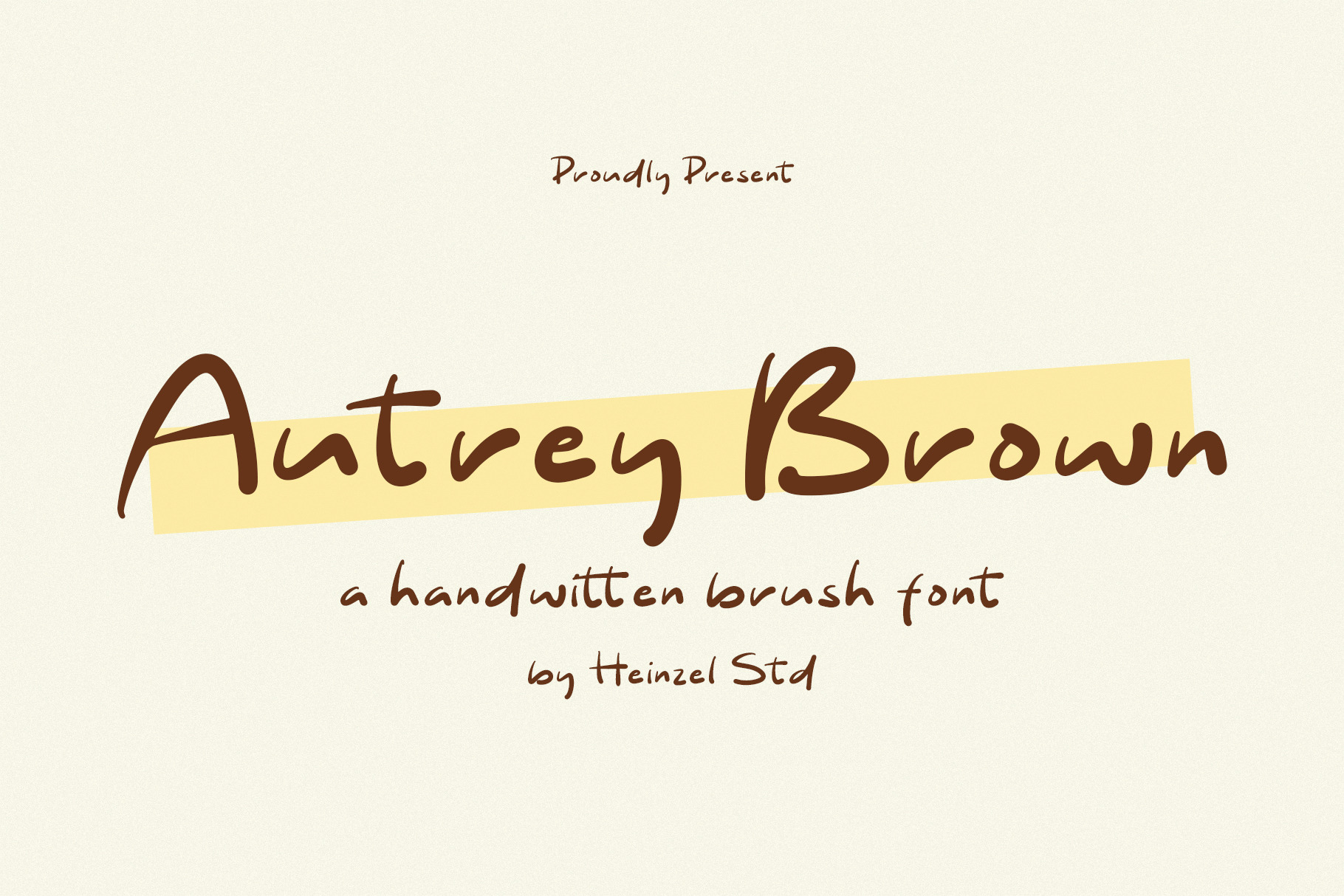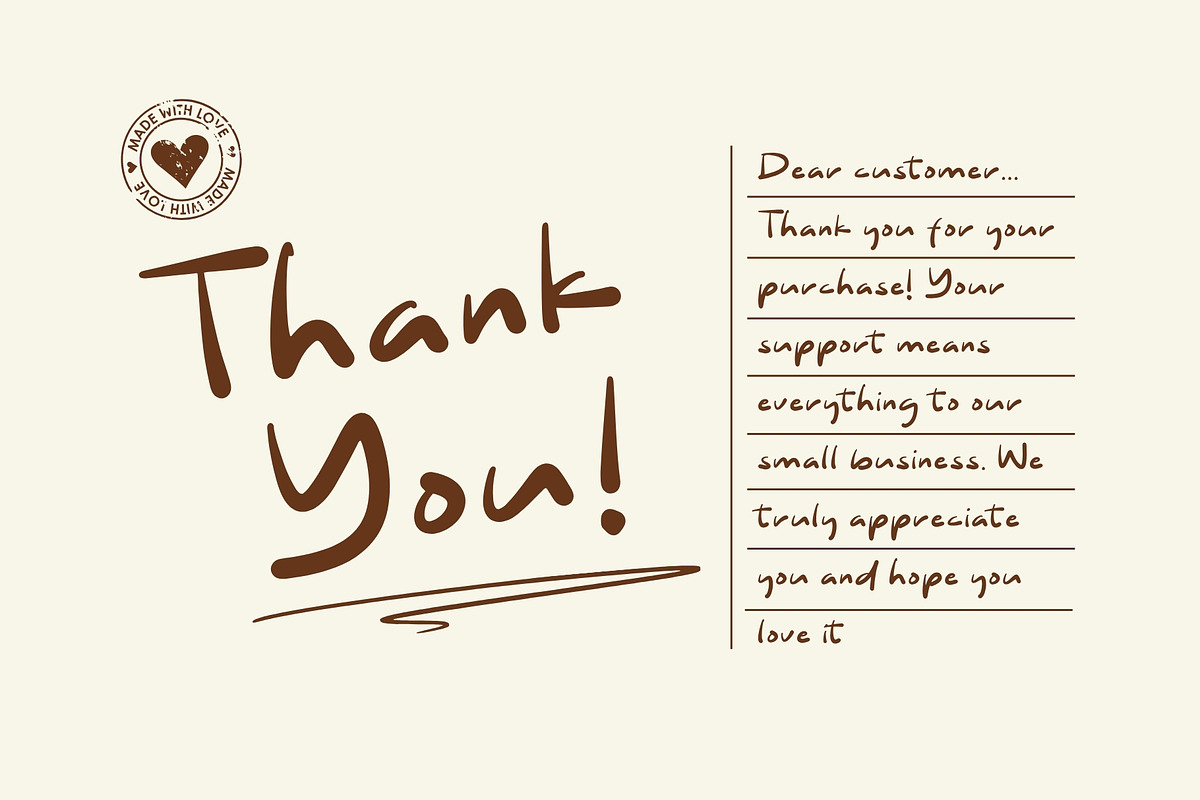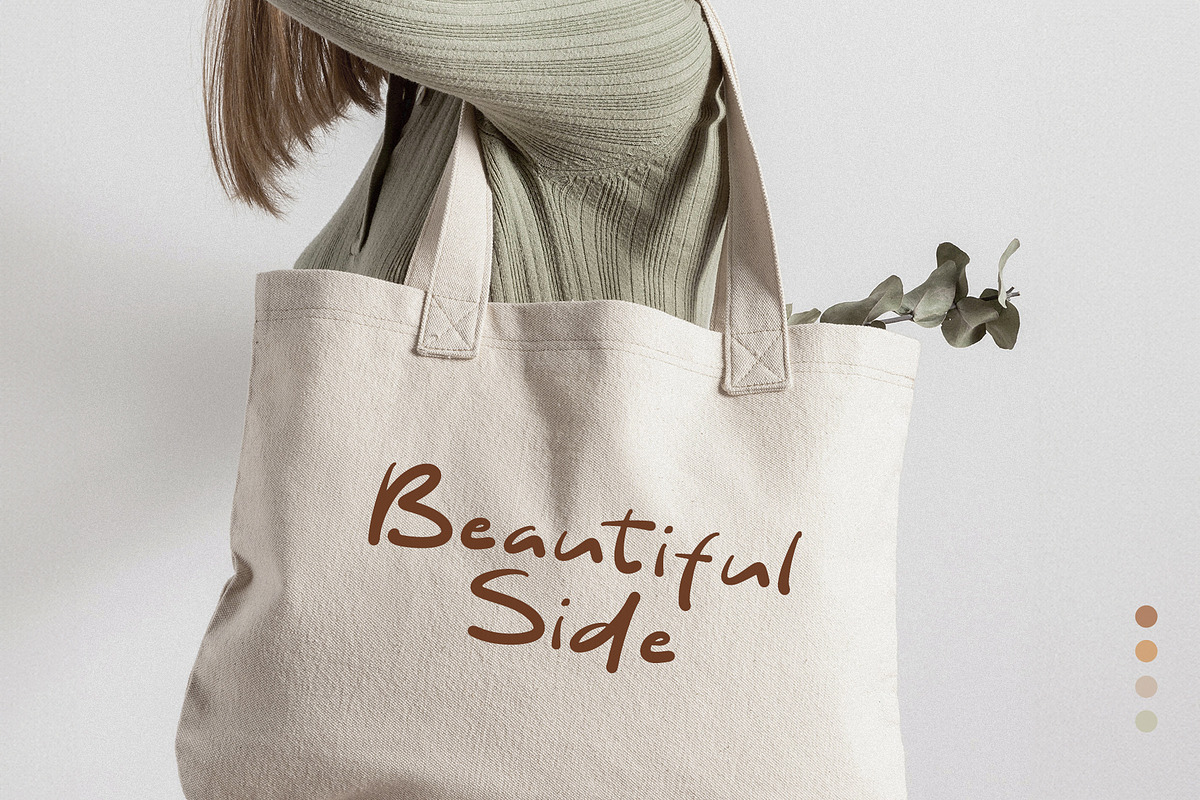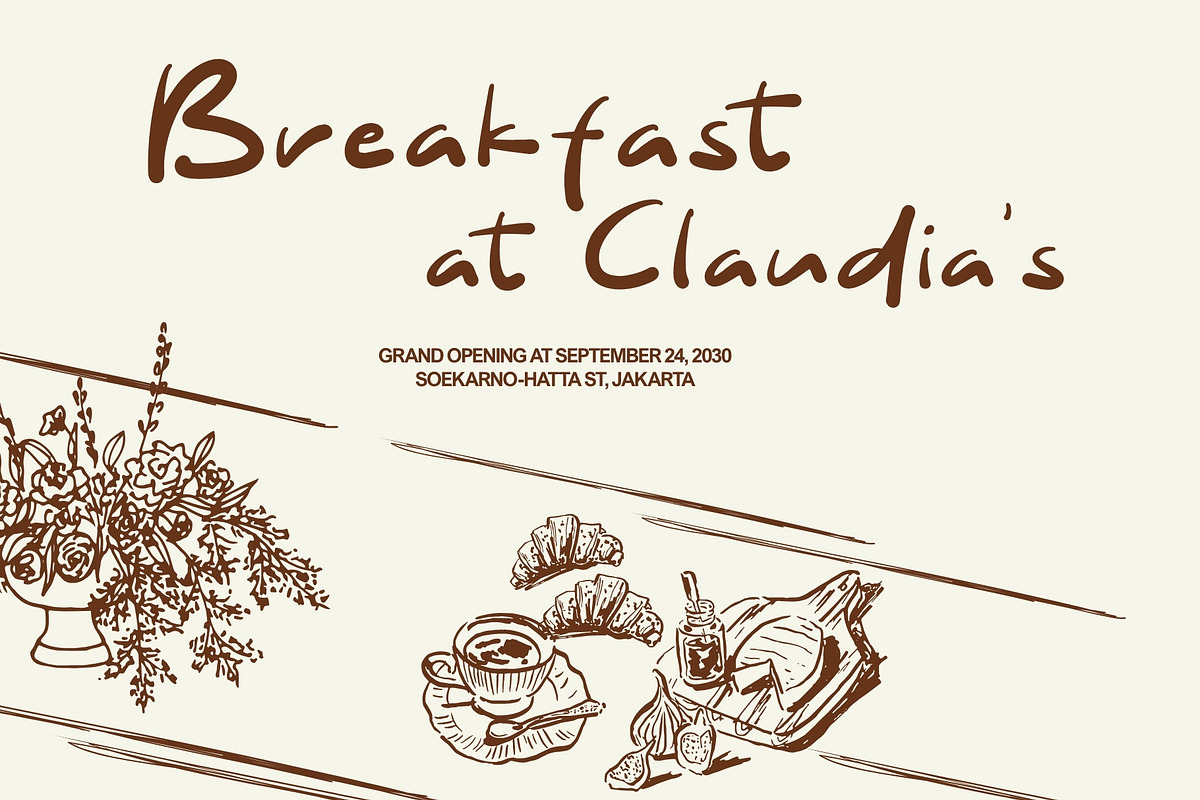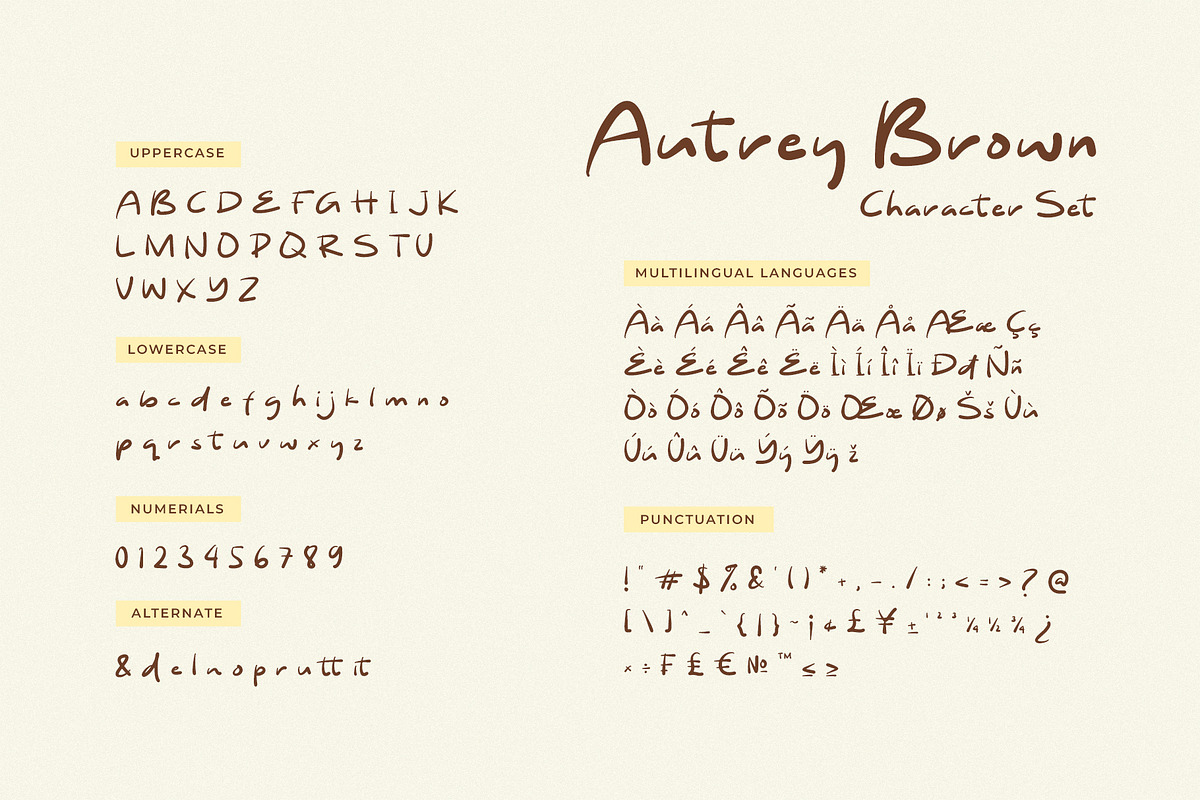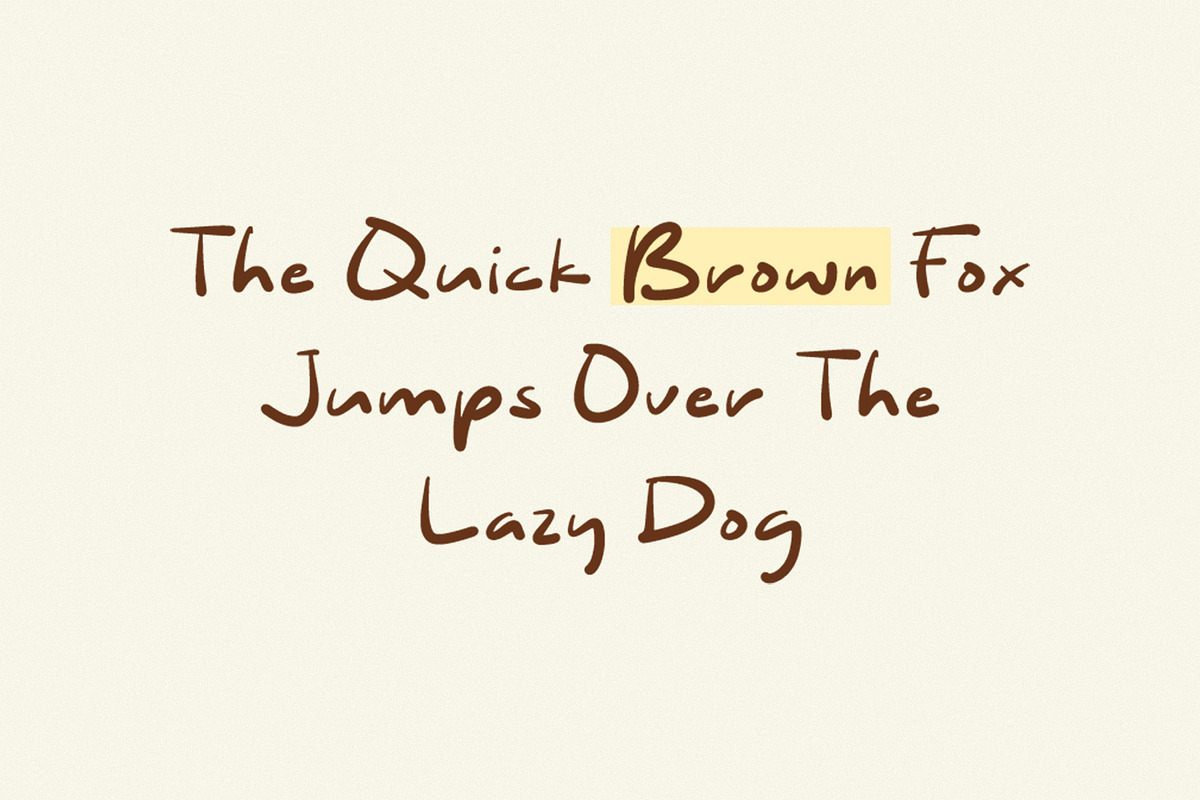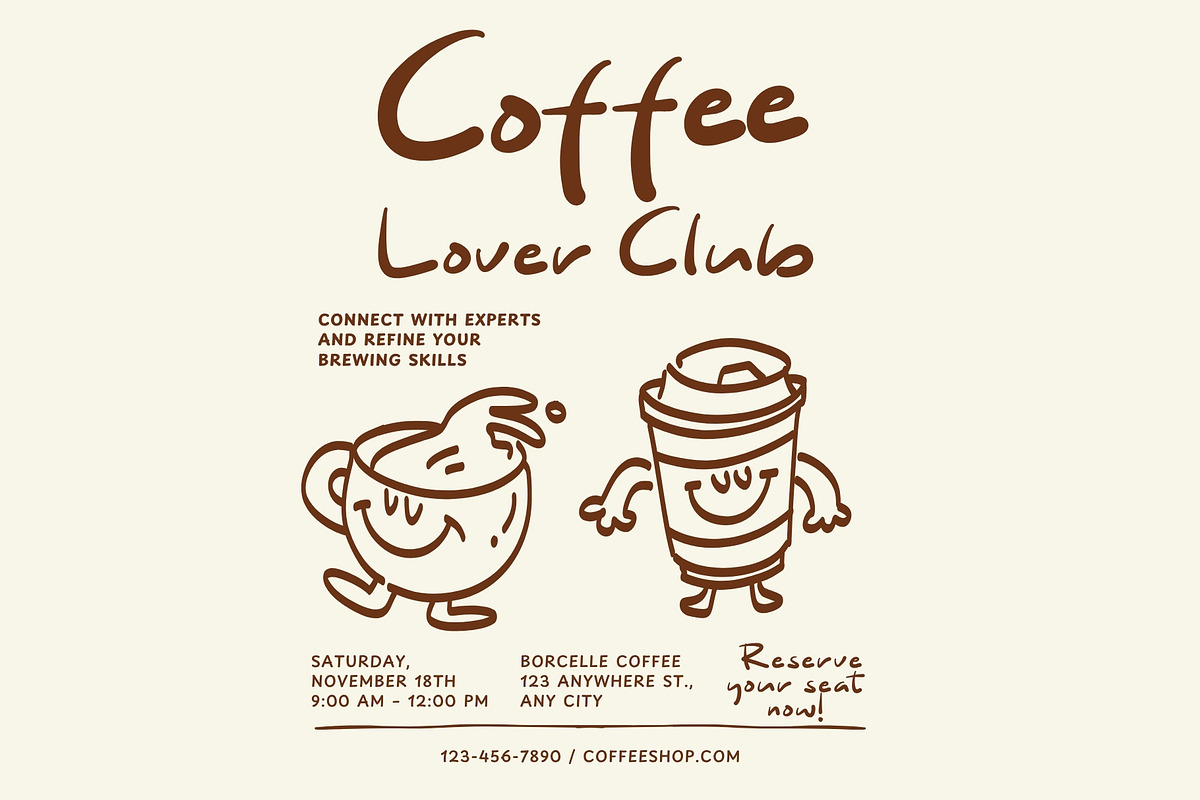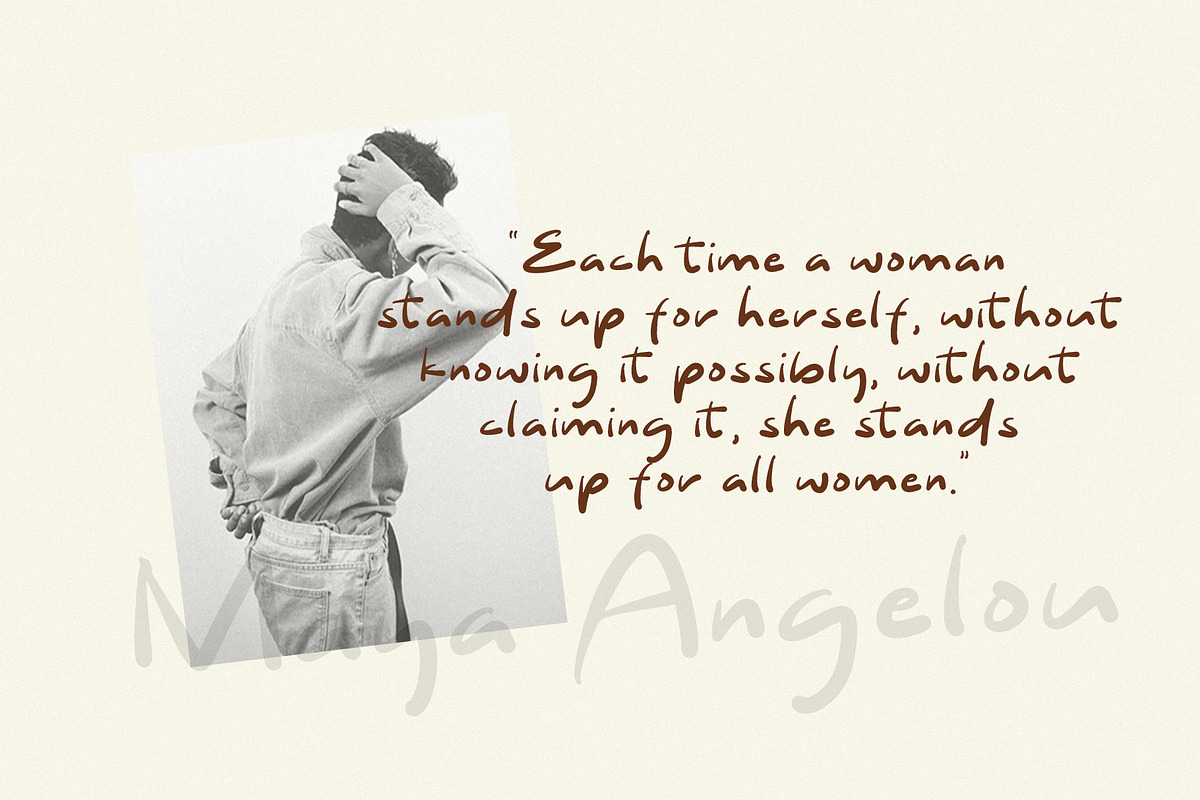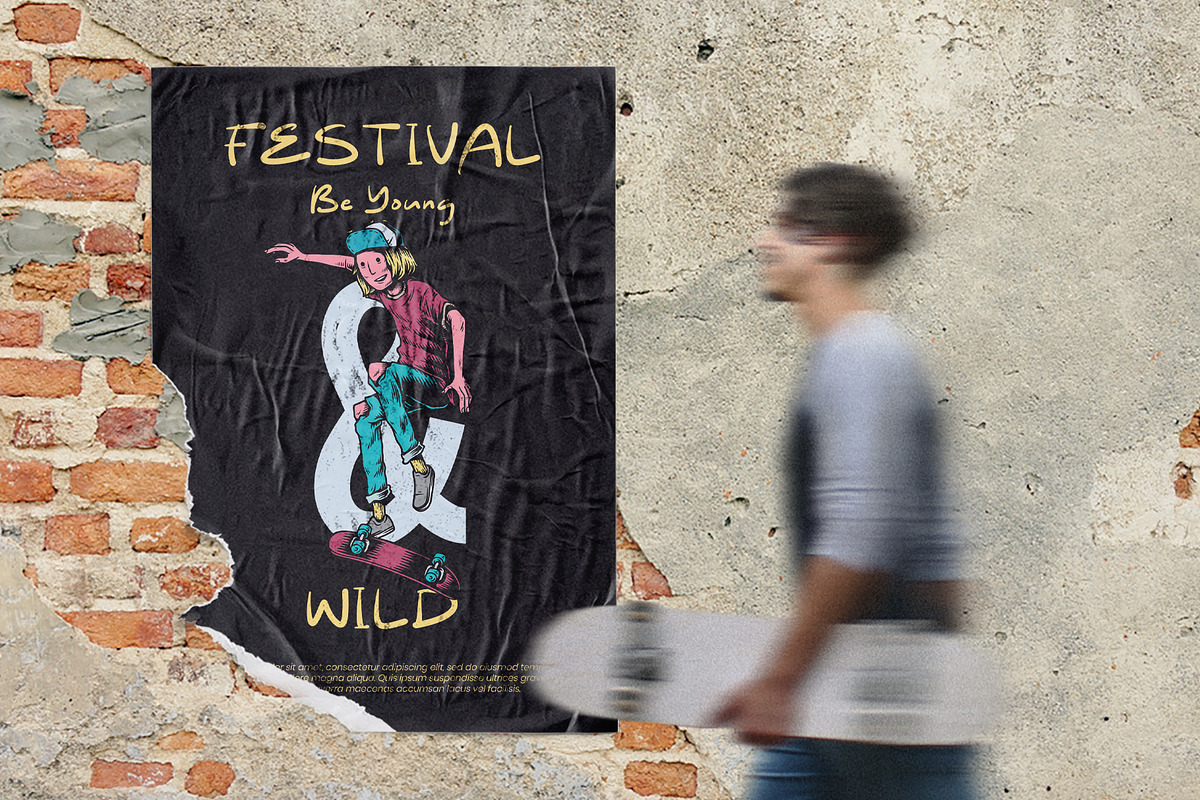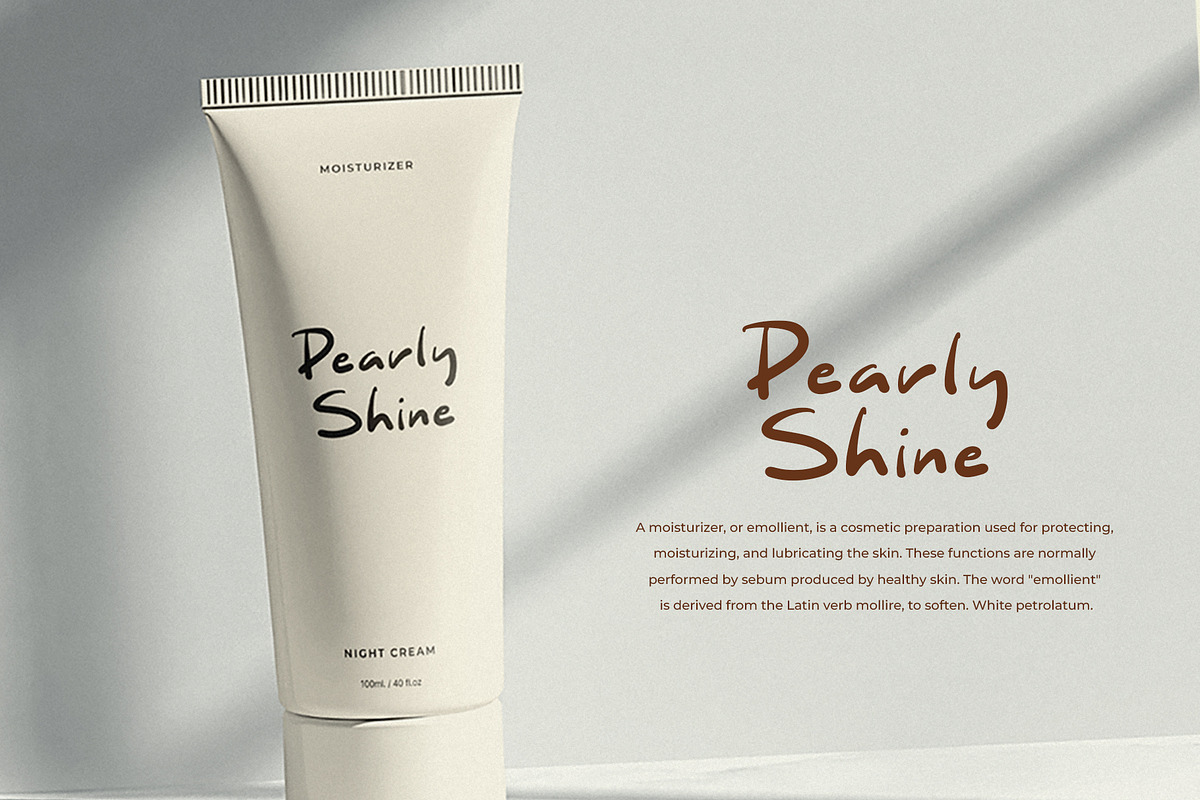
Autrey Brown Handwritten Brush Font
Autrey Brown is a stylish handwritten brush font designed to bring a natural, personal, and expressive feel to your creative projects. With its smooth handwritten strokes, organic letterforms, and effortless signature aesthetic, Autrey Brown adds a touch of personality while maintaining a clean and modern appearance.
Perfect for logos, branding, social media graphics, invitations, wedding stationery, quotes, packaging, apparel, photography watermarks, personal branding, and lifestyle designs, this signature-style typeface is versatile enough for both digital and print applications.
Autrey Brown works beautifully when you want your typography to feel authentic, elegant, relaxed, and handcrafted. Its fluid character makes it especially suitable for brands and designs looking for a memorable handwritten identity.